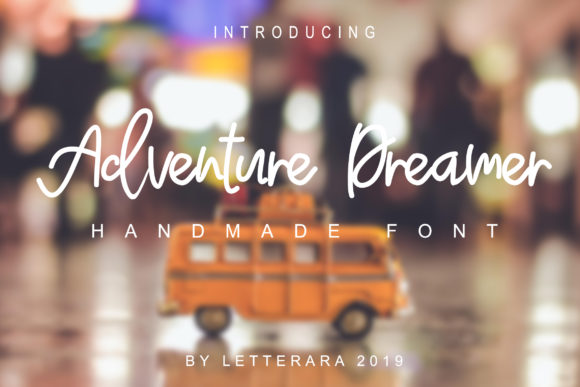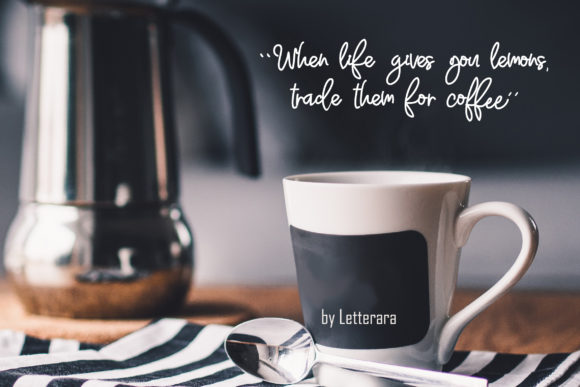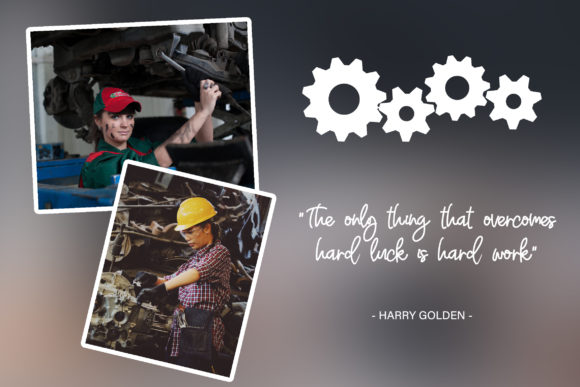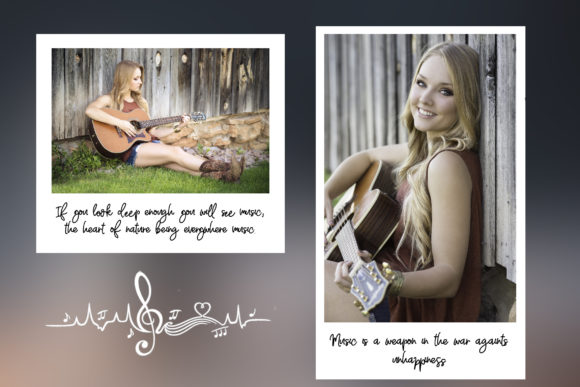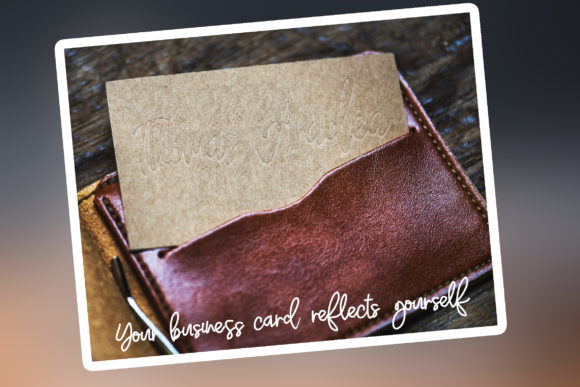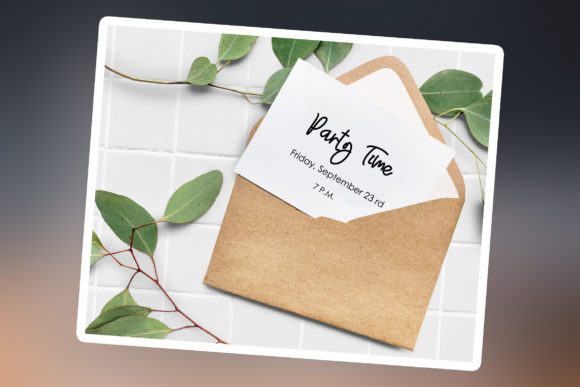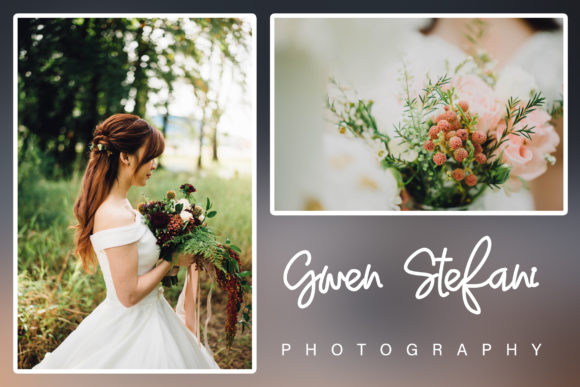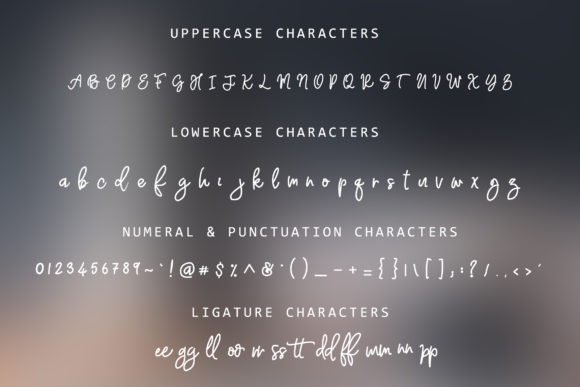
Adventure Dreamer Family Font
About Adventure Dreamer Family Font
The Adventure Dreamer is a stylish, unique handwritten font that’s easy to remember. It includes 4 unique styles which gives you the opportunity to create multiple unique designs with just this one download.
It’s great for unique branding, photo overlays, watermarks, business cards, invitations, wedding, photography, fashion, and much more!